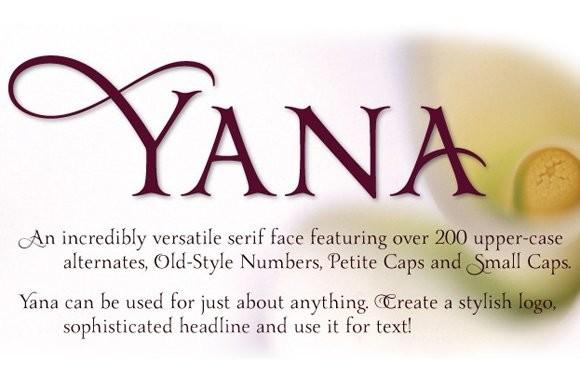
Yana Family Font Description
Classy, calligraphic, and confident. Yana’s classical proportions convey worldly sophistication and experience. Yet unlike more staid classical faces, Yana’s concave terminals and elegantly flared serifs suggest romance, mystery, and a touch of Victorian extravagance.
Designed as a versatile family for everything from text use to headlines and titling, you’ll find yourself using Yana in project after project. Yana is available in regular, bold, and italic variants, and includes two sets of swash capitals — each available in standard sizes and small caps, but also in mid-sized petite caps, ideal for adding beautiful, properly scaled flourishes to the middle or end of wordmarks.